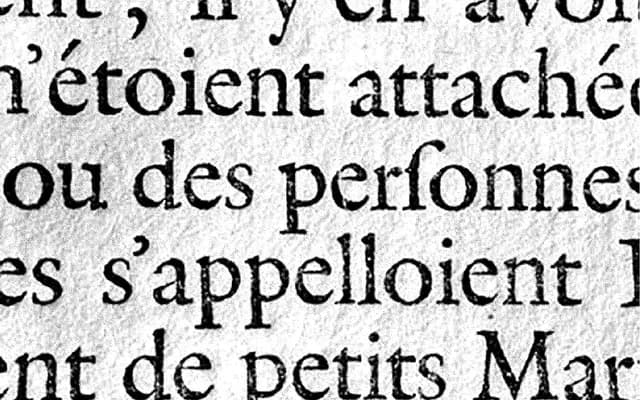
Gestura
Sociotype · 2021
A modern old style serif superfamily that mixes calligraphic curves with wedge-like terminals across three optical sizes for text, headline and display.
A 42-style superfamily across three optical sizes, Gestura is rooted in 16th century old style models such as Robert Granjon's Gros Cicero, with reference to Matthew Carter's Galliard and Monotype Plantin. The design balances graceful calligraphic curves with hard-edged wedge terminals, ornate strokes meeting minimalist reductions of traditional serif forms. Six stylistic sets shift the typographic voice between conservative and expressive, with sets four to six tuned for italic only. Text is built for long-form reading, while Headline and Display exaggerate Gestura's character as scale increases.
A modern serif superfamily with 16th century old style roots. Draws on Robert Granjon's Gros Cicero, Matthew Carter's Galliard and Monotype Plantin, while subverting convention with wedge-like terminals, calligraphic curves and minimalist serif reductions.